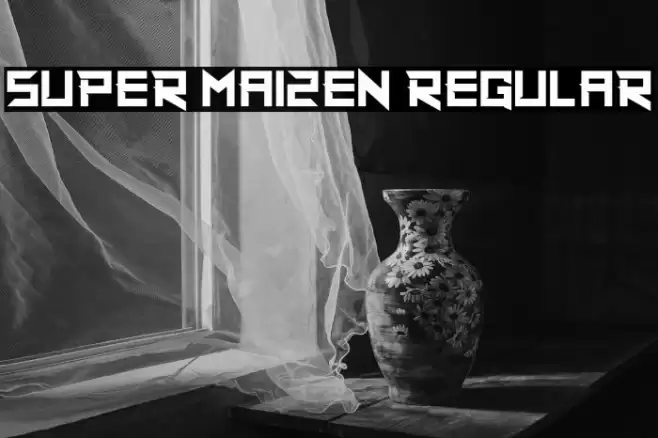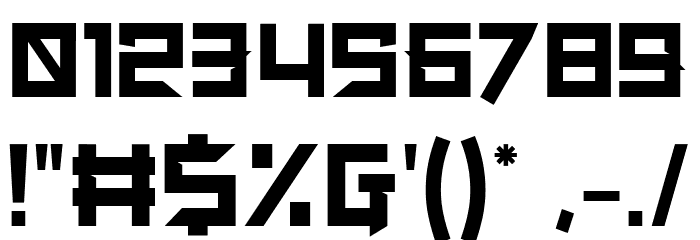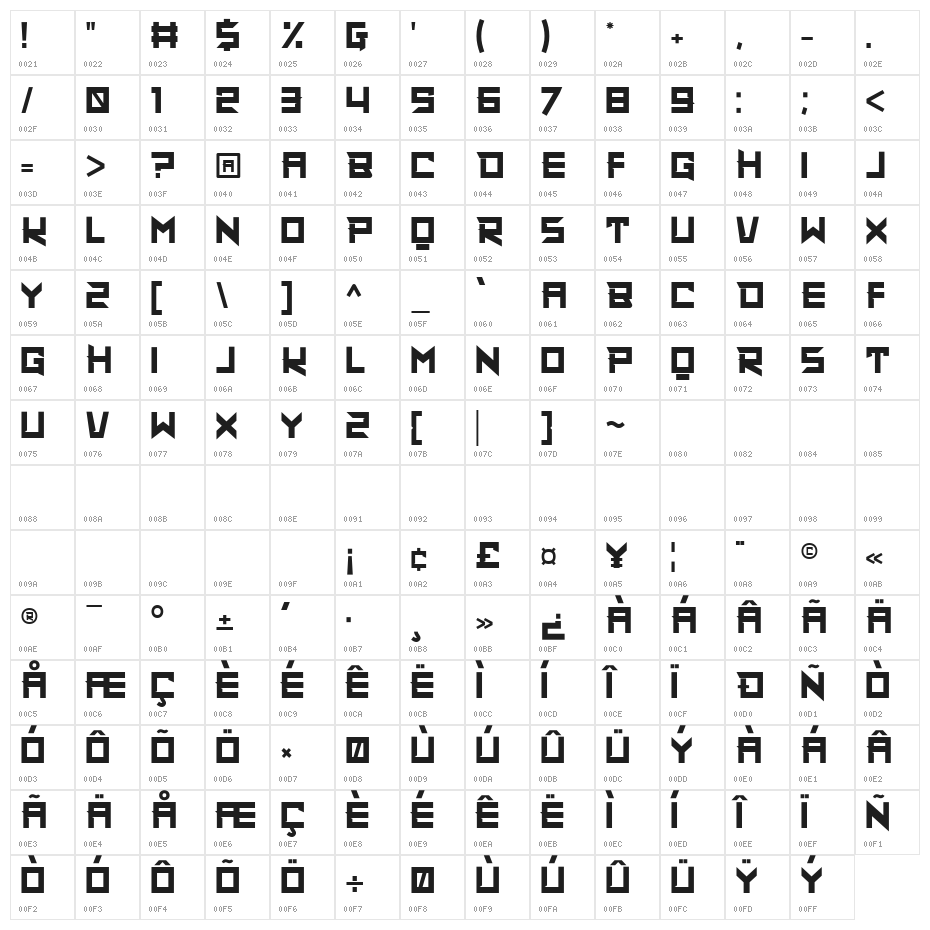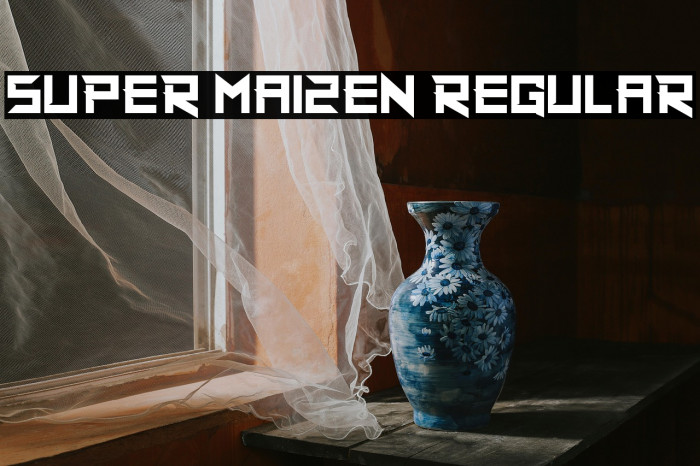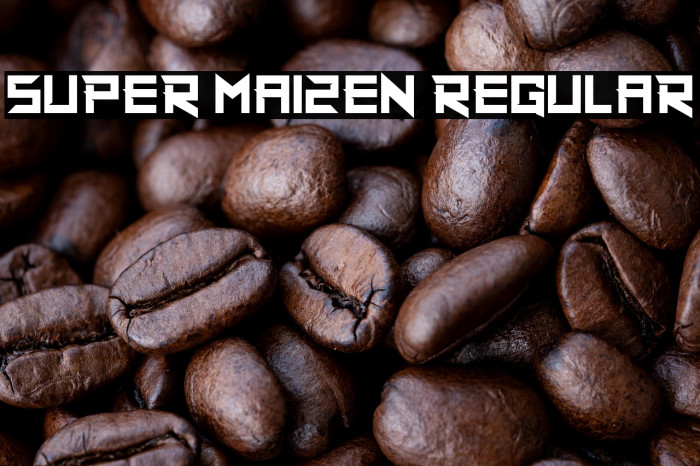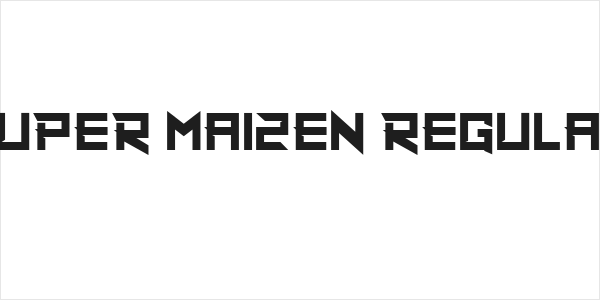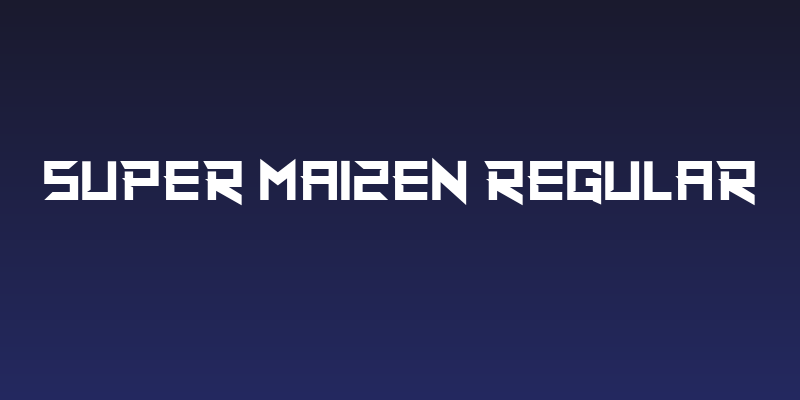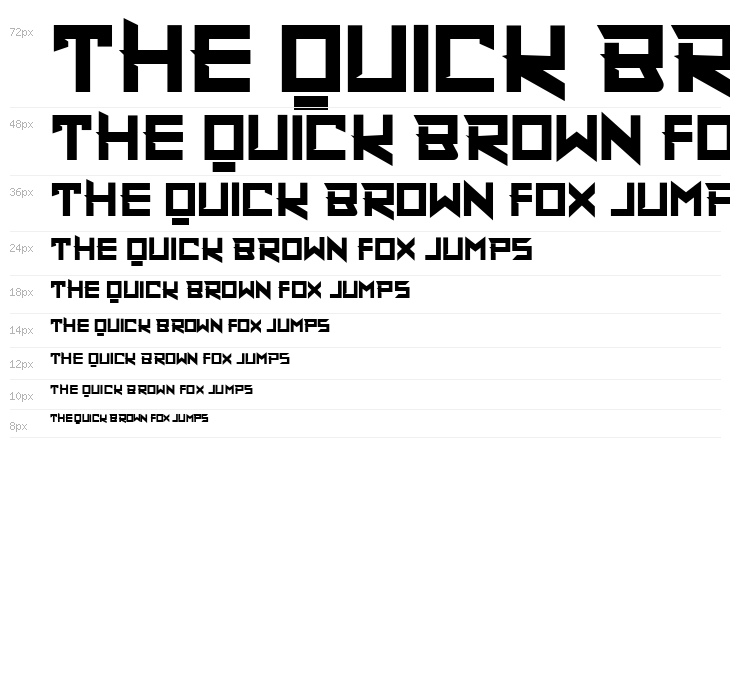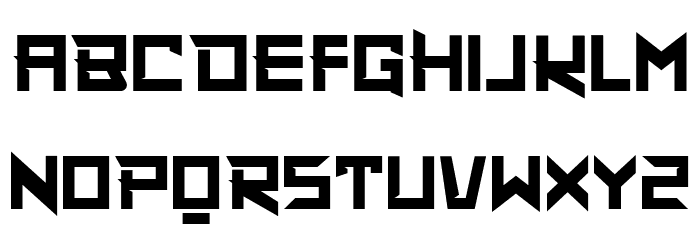
Super Maizen Regular Font
Super Maizen Regular Description
This font features a bold, geometric style with sharp angles and a futuristic aesthetic. Each character is crafted with precision, showcasing a unique blend of straight lines and angular cuts that create a dynamic and striking appearance. The uppercase and lowercase letters maintain a consistent design language, ensuring uniformity across text. Numbers and special characters are equally bold and distinct, making them stand out. The overall design is modern and edgy, suitable for projects that require a strong visual impact.
A bold, geometric font with sharp angles and a futuristic look from Uncategorized fonts.